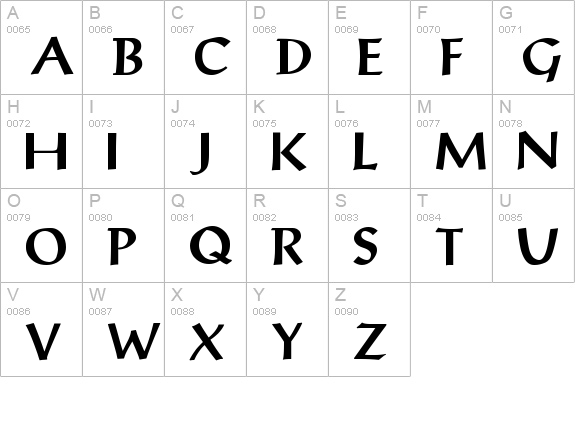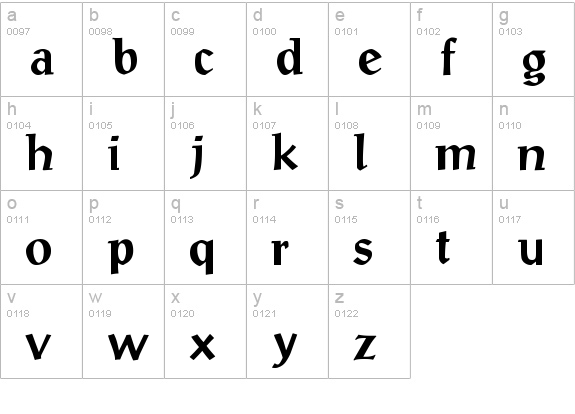
Monclova Font Details
Monclova font is a stunning typeface that exudes elegance and modernity. With its sleek lines and balanced proportions, this font is perfect for a wide range of design projects, from branding to editorial design. The clean and sophisticated look of Monclova font makes it a versatile choice for both digital and print applications. What's even better is that Monclova font is completely free to download at FontsMarket.com. This means that you can easily access and use this beautiful font in your projects without any cost. Whether you're a designer looking to add a touch of sophistication to your work or a business owner in need of a stylish font for your branding, Monclova font is the perfect choice. Don't miss out on this amazing opportunity to elevate your designs with the exquisite Monclova font, available for free at FontsMarket.com.